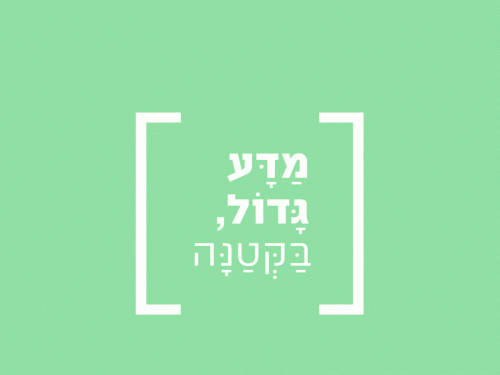
About font Atlas Pro
This steady, precise square sans serif typeface can be used in a wide variety of media. It’s a multilingual typeface that contains over 725 characters, fully supports over 140 Latin languages and includes many OpenType features, symbols and surprises. Atlas Pro is based on a typeface called Redial, created by Avraham Cornfeld in 2009. Three years later, the font went through a series of changes and improvements, changed its name to Atlas and was revealed to the public on the AlefAlefAlef website. In 2016, Atlas went through another extensive series of upgrades, turning it into a real head to toe Pro typeface.
Atlas is good for both display uses and body text, and will not overshadow other parts of your design. -
- liga office → office
- smcp אבג Abc8 → אבג Abc8
- numr 123/456 → 123/456
- calt קֳ → קֳ
- salt bang → bang
- dlig חחח → חחח
- dlig ommm → ommm